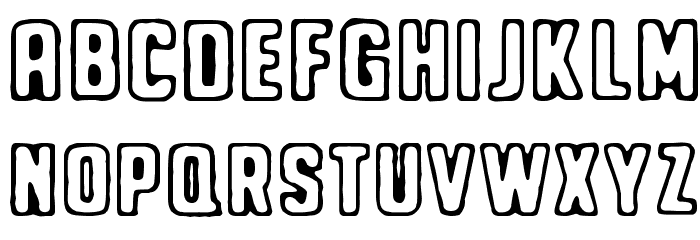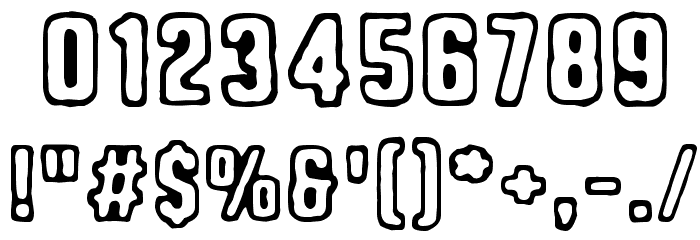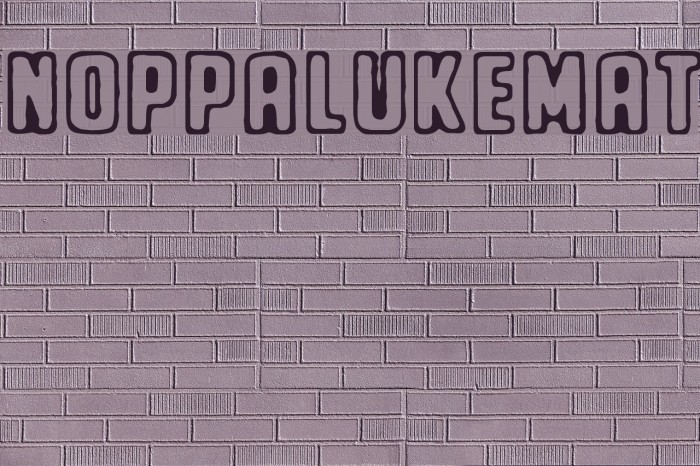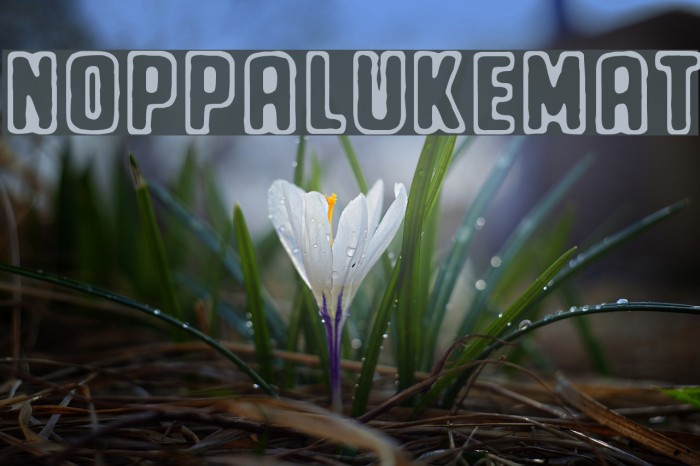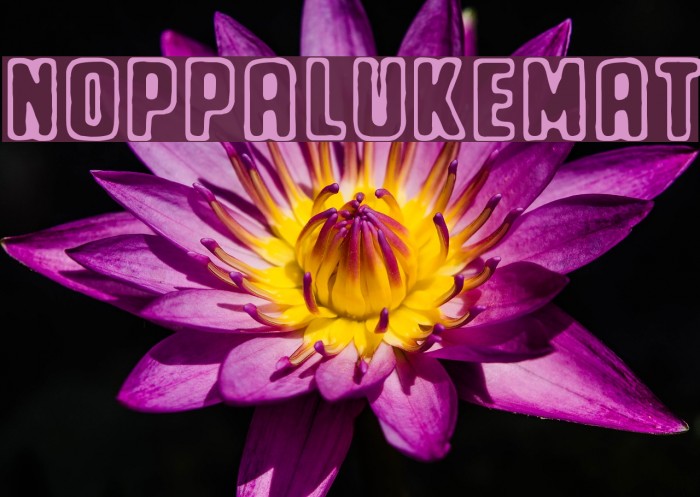
Noppalukemat Font
This font features a bold, playful design with thick, rounded edges and a slightly irregular outline, giving it a hand-drawn appearance. The characters are uppercase and lowercase, with numbers and a variety of special symbols. The style is reminiscent of comic or cartoon lettering, making it ideal for projects that require a fun and informal touch. The letters are evenly spaced, and the overall look is cohesive and visually engaging. The font's unique outline adds a layer of depth, making it stand out in any design context.
A bold, playful font with rounded edges and a hand-drawn look.
- Proposed Projects: Ideal for children's books, comic strips, playful branding, and casual invitations.
- Overall Style: Playful, Comic